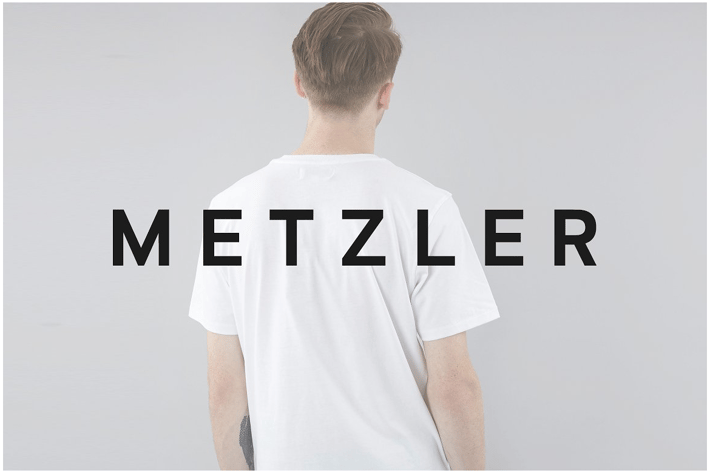
METZLER Minimal Sans-Serif Typeface + Web Font
METZLER is a modern Sans-Serif typeface inspired by some of the classic geometric typefaces, but with some unique touches. METZLER will be perfect for displaying anything ranging from small content text to stylish headlines (add some letter spacing and it will be more beautiful) that you usually find in luxury consumer product labels, fashion & portfolio websites, premium packaging designs etc.
The font comes with 3 weights (Light, Regular, Bold) and italic versions of the three weights. The pack includes OTF, TTF and Web Fonts (SVG, EOT, WOFF, WOFF2 everything).